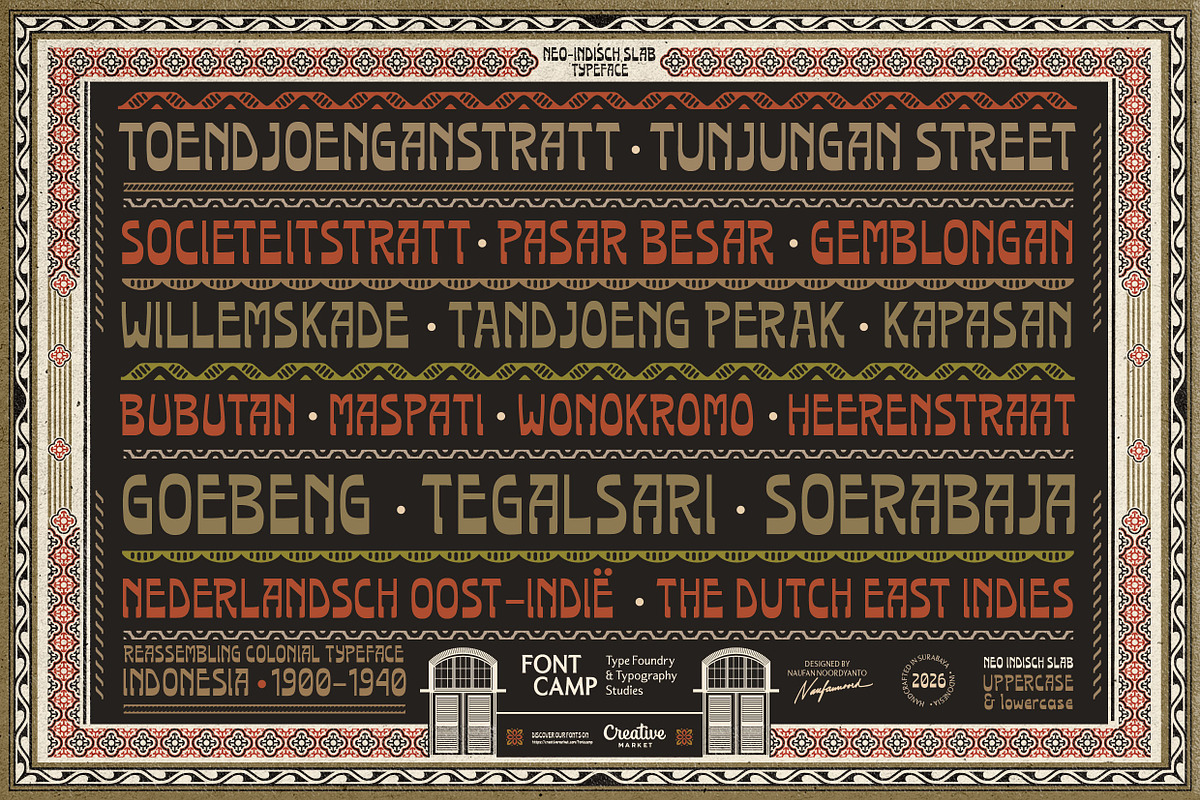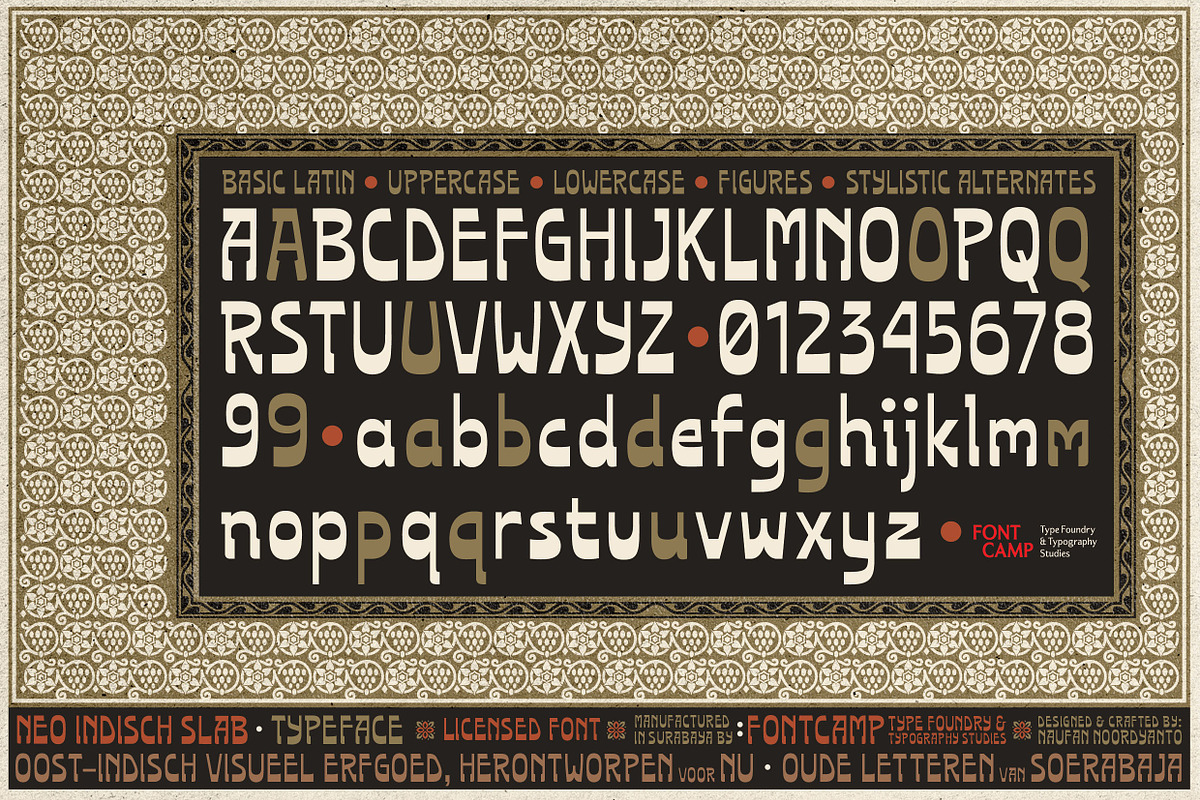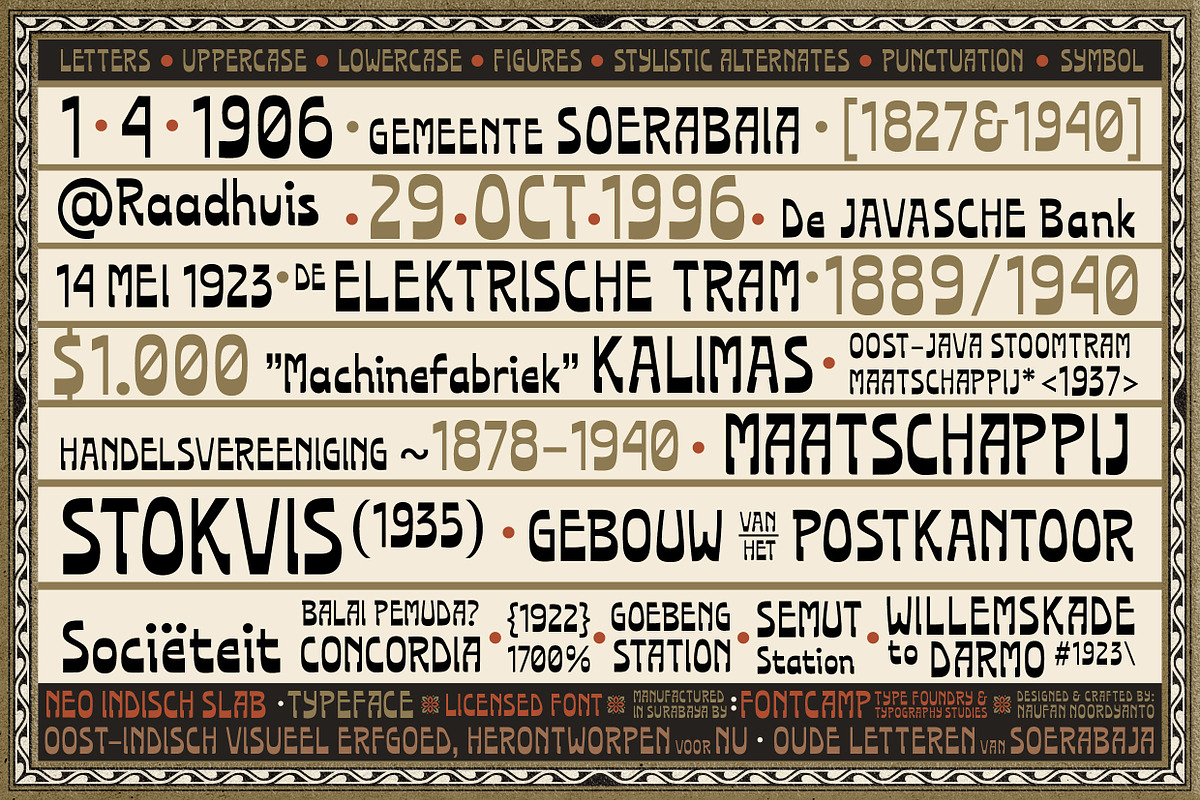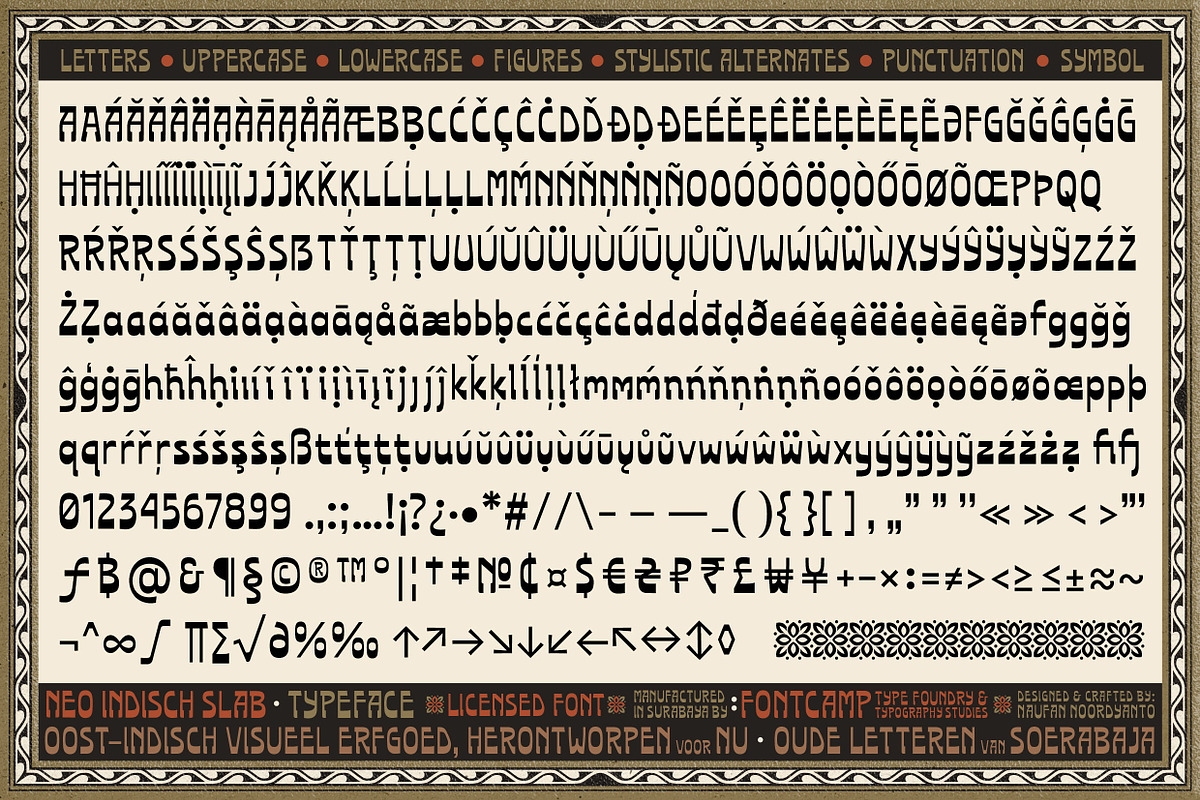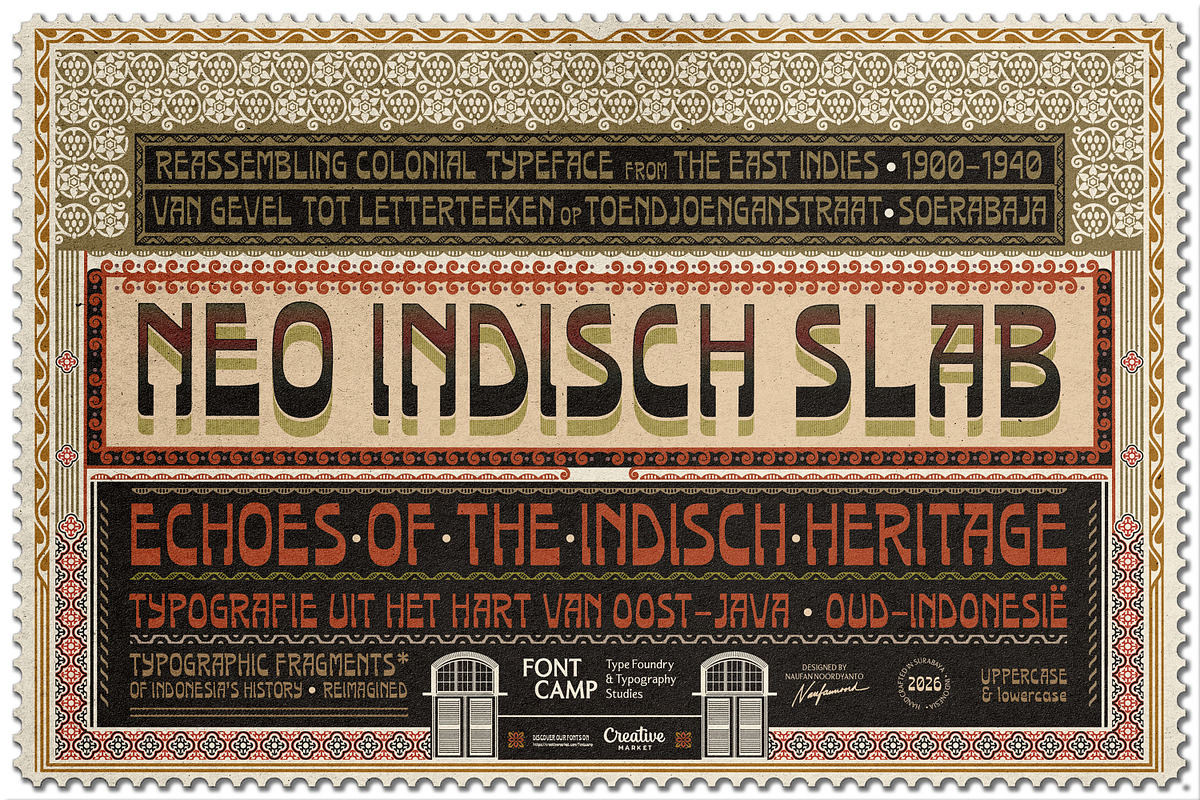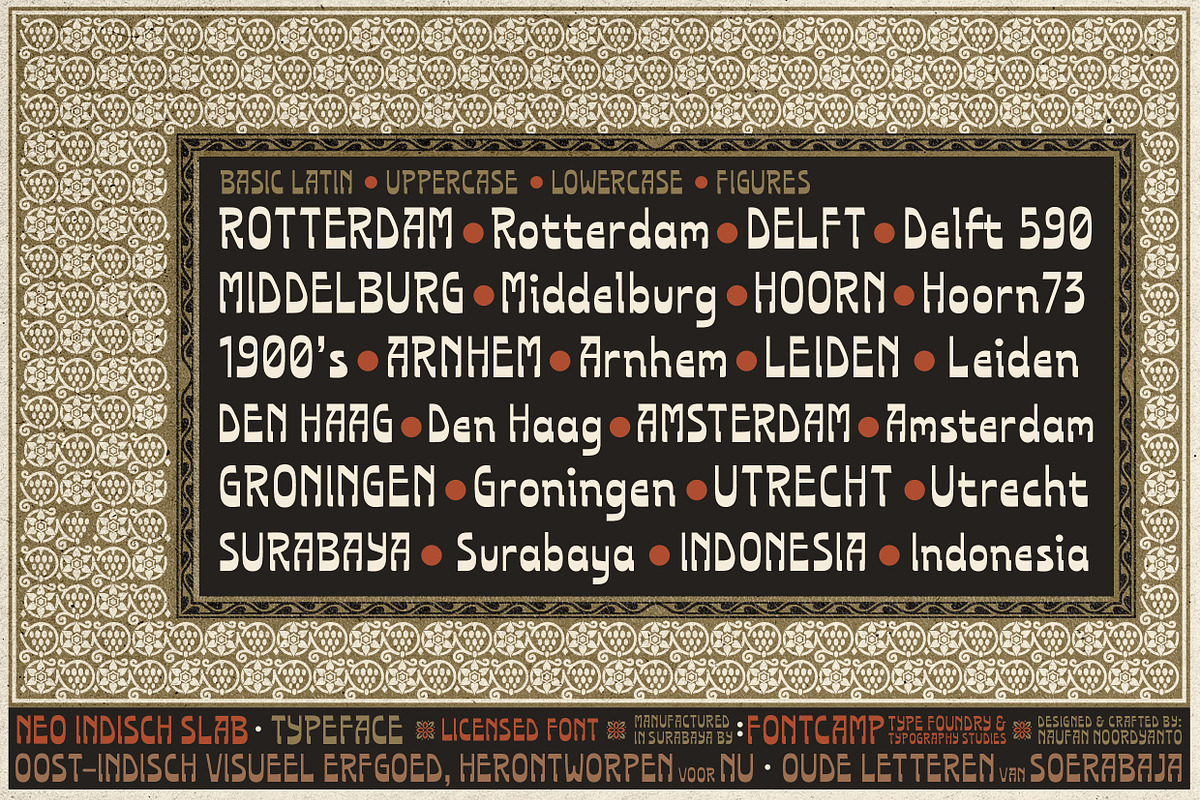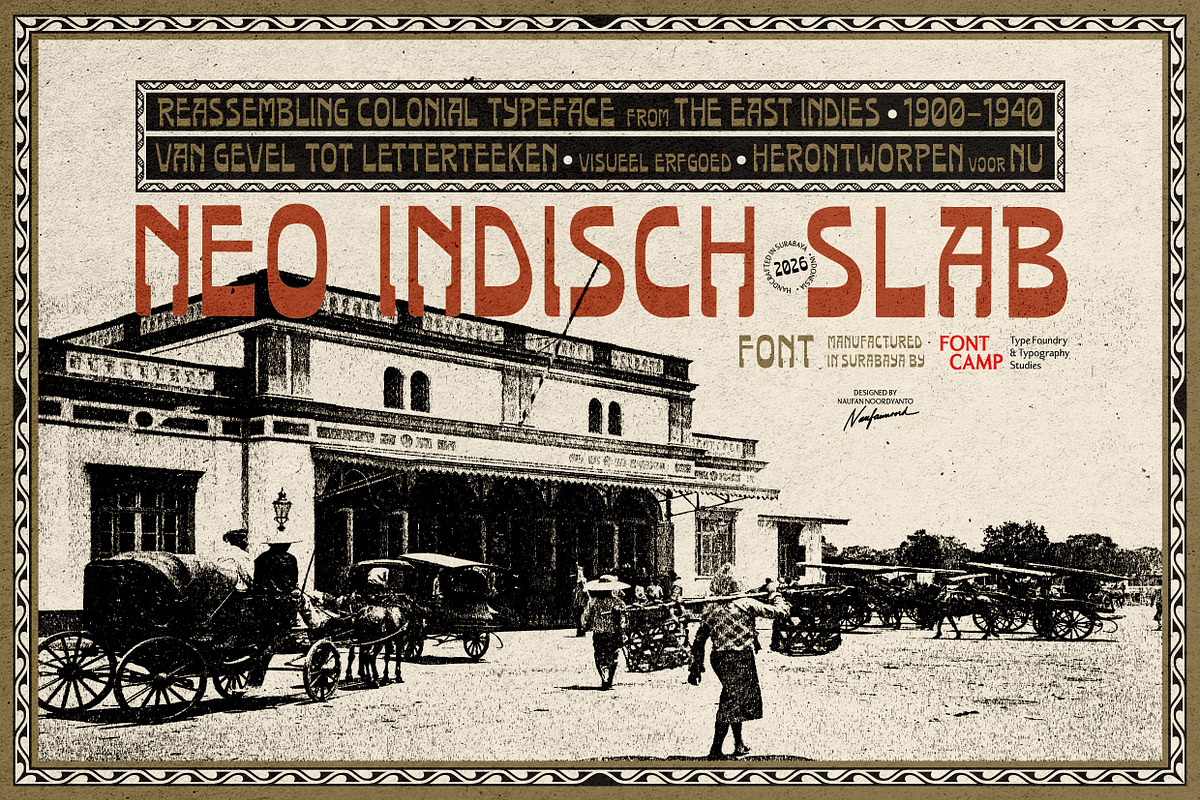
Neo Indisch Slab Font
Introducing a "NEO INDISCH SLAB" Font.
DESCRIPTION:
Neo Indisch Slab: Eene nieuwe stem voor de oude letteren van Soerabaja, Oost Java.
"Neo Indisch Slab" is a slab-accented display sans-serif that reimagines Surabaya’s colonial-era lettering (1900–1940) through the lens of bricolage. In this design context, bricolage is a creative process of recombining visual fragments sourced from archival colonial typography to construct a new letter system with contemporary functional meaning.
Inspired by typographic remnants from Surabaya’s city center, Indonesia (1900's)—specifically the ANIEM Building, Toko NAM, Toko Piet, and the Loe Tiong Yan storefront—this typeface geometrical structures with the blocky terminals characteristic of Indisch (Dutch colonial-era) sign painting. The letterforms feature low-to-medium contrast, squarish proportions, floating diagonals in the ‘M’ and ‘W’, and decorative flare terminals that create a distinctive visual rhythm. Designed as an homage to the Dutch East Indies typographic landscape, Neo-Indish Slab offers a modernized historical aesthetic suitable for contemporary branding, editorial design, and visual identities.